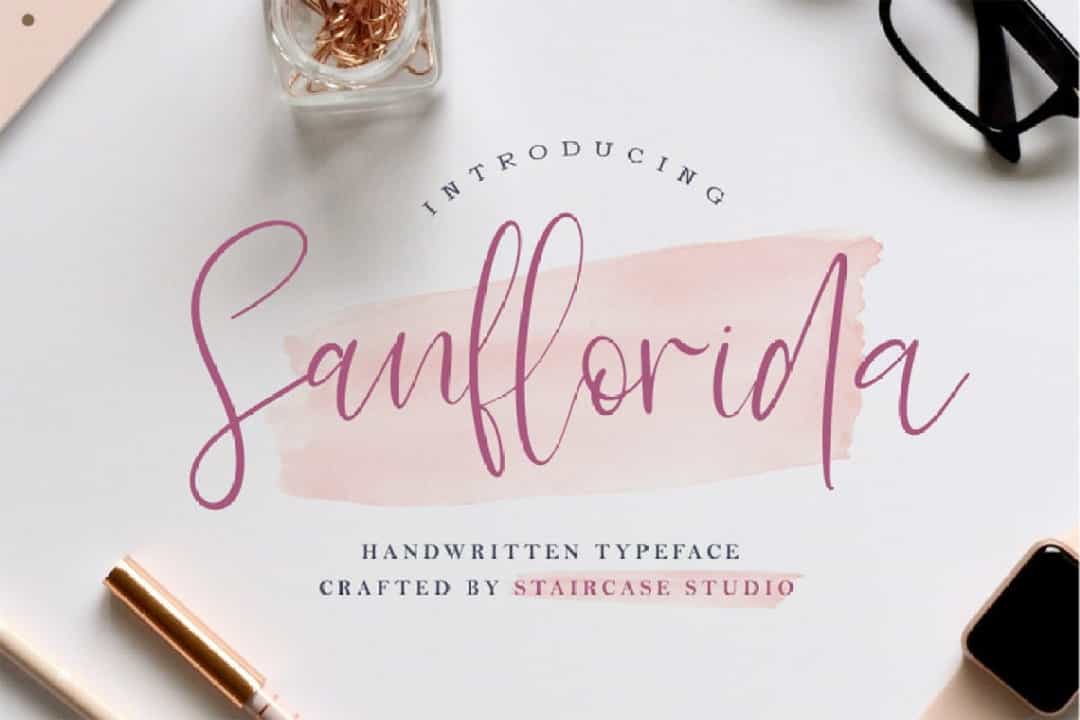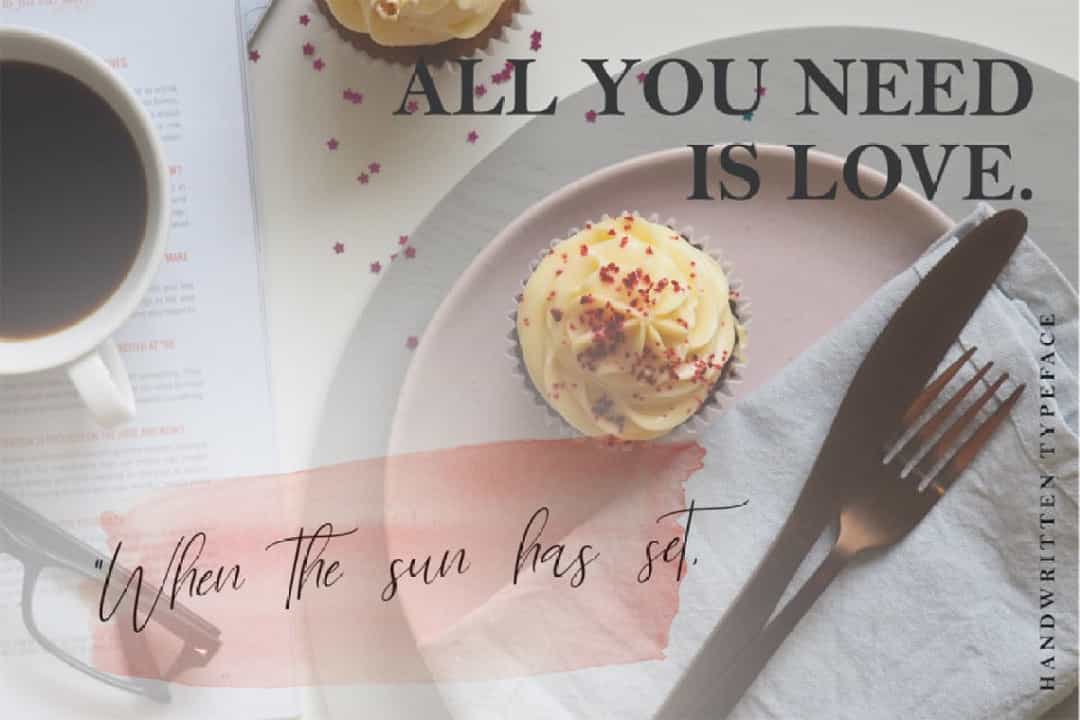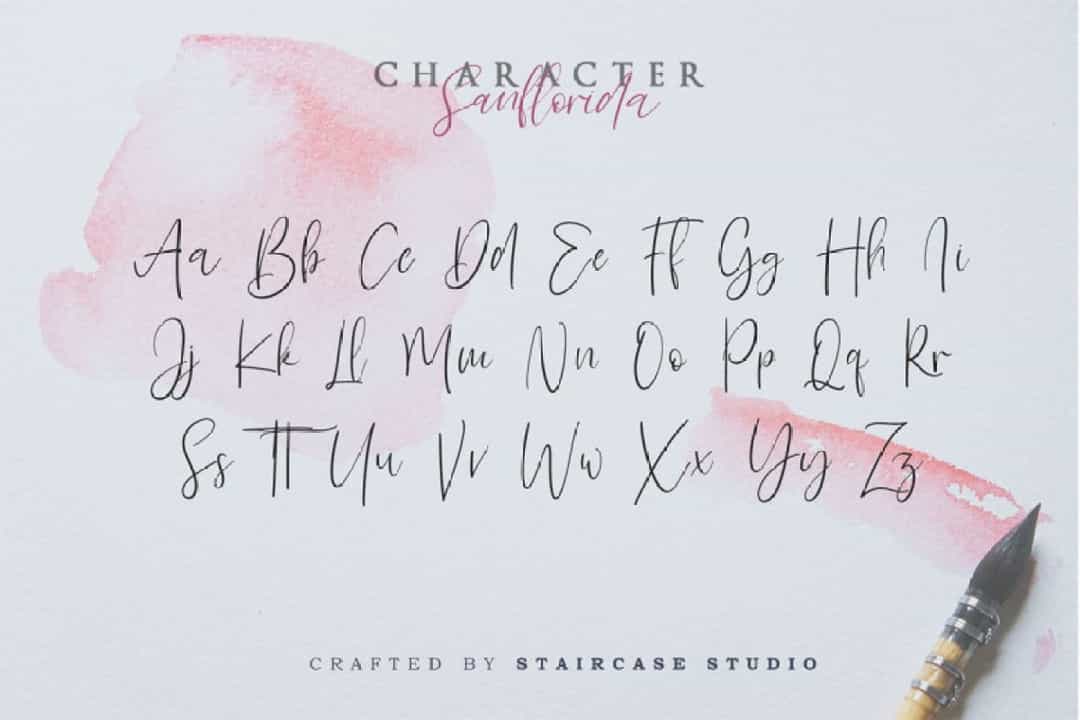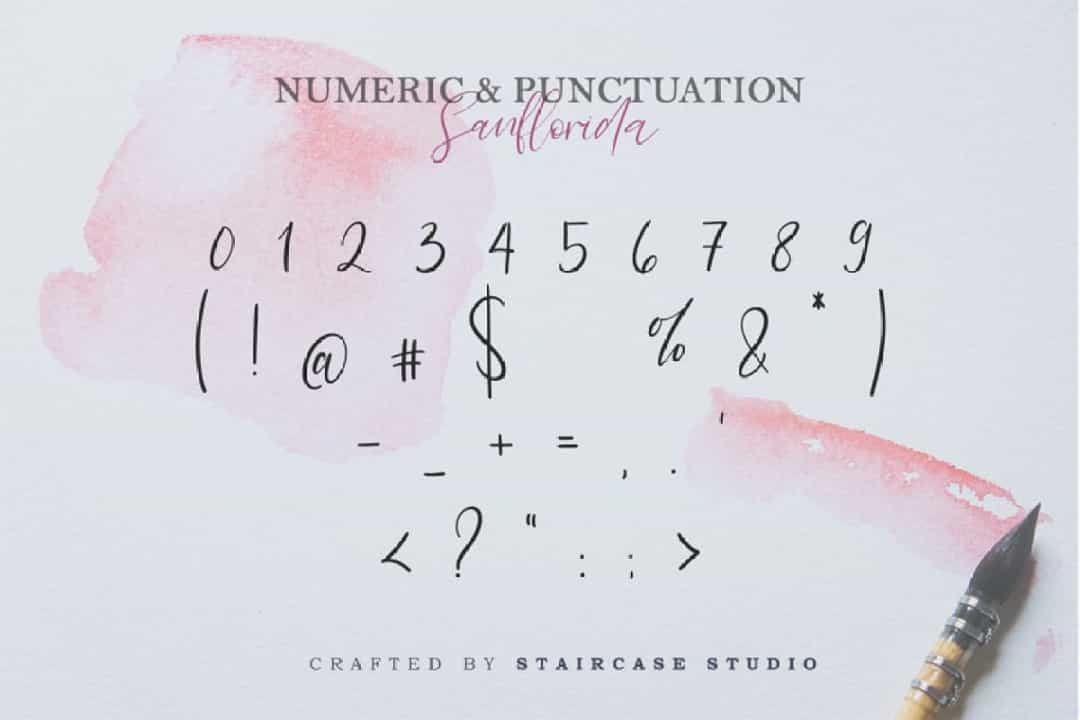
Sanflorida is a script font that belongs to the modern category of handwriting fonts. Each of the letters has been crafted to make sure that when you put your text in it will look great. The modern script style of this font is perfect for the following uses: logo photo, watermark and quotes, blog header or poster, wedding branding logo clothing, fashion letters, invitations, stationery and many more.